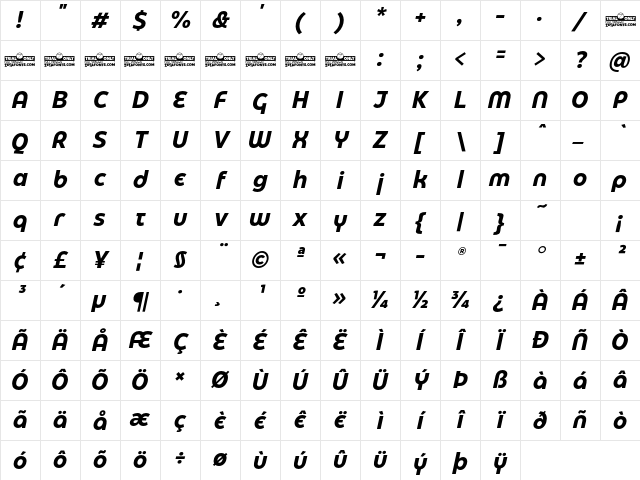
Eastman Grotesque Alt Trial Bold Italic Free Font
Eastman Grotesque Alt Trial Bold Italic
Foundry: Zetafonts
Designer: Francesco Canovaro
Design Context for Eastman Grotesque Alt Trial
Eastman Grotesque Alt Trial is a composed and adaptable typeface that performs quietly and consistently across a wide range of design contexts. The slanted form adds forward momentum and visual energy. Its bold stroke weight gives it real presence on the page.